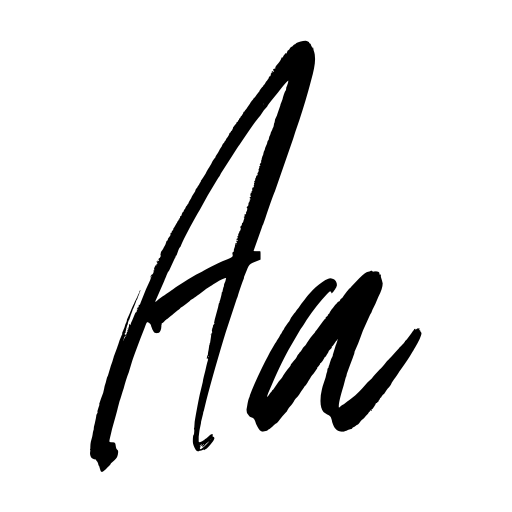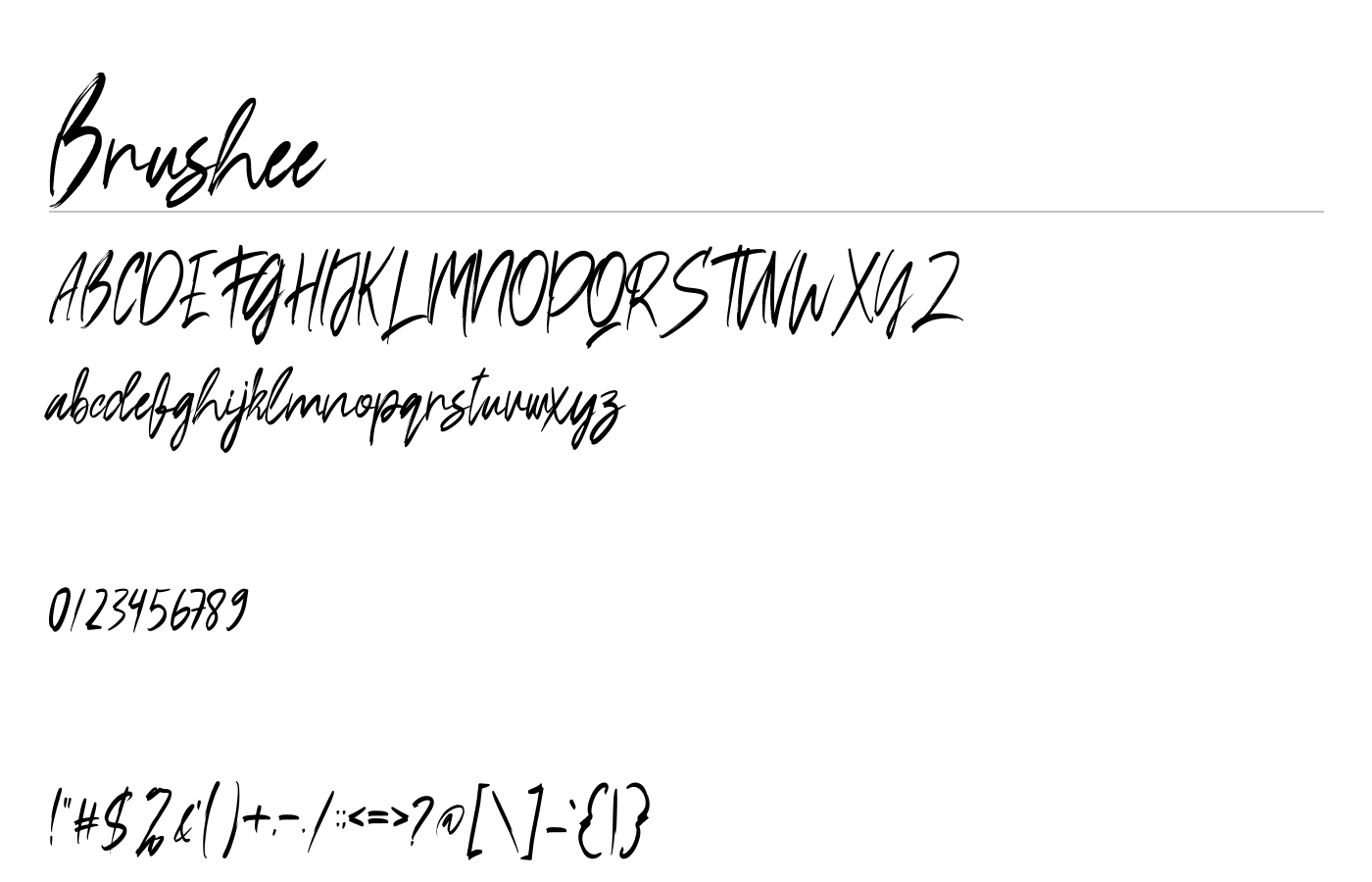
Brushee is a lively and casual script font that mimics expressive brush strokes with its uneven, hand-painted style. It features tall, narrow letterforms with high contrast in stroke weight, creating an energetic and personal feel ideal for creative branding, invitations, and artistic projects. This font works best in headlines and logos where a dynamic, handwritten touch can make a strong, approachable impression.
Brushee Font